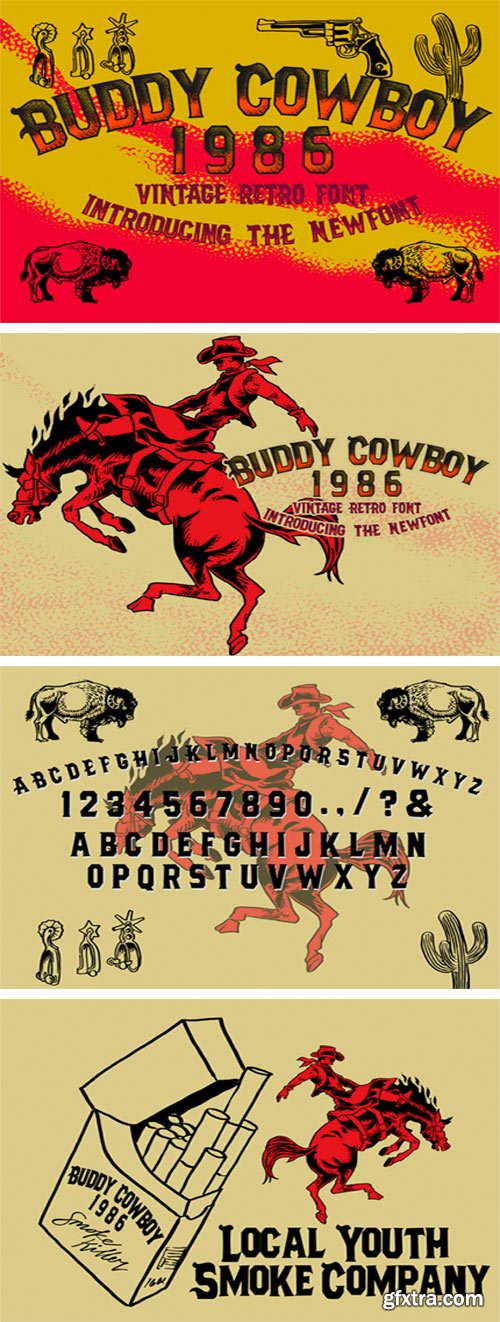
Buddy Cowboy 1986 Font
Buddy Cowboy 1986 is a bold display font. It features American vintage themed characters that will look amazing in your crafting projects. Get inspired by its authentic nuance and use it to create beautiful posters, artwork, social media posts, and outstanding logos.